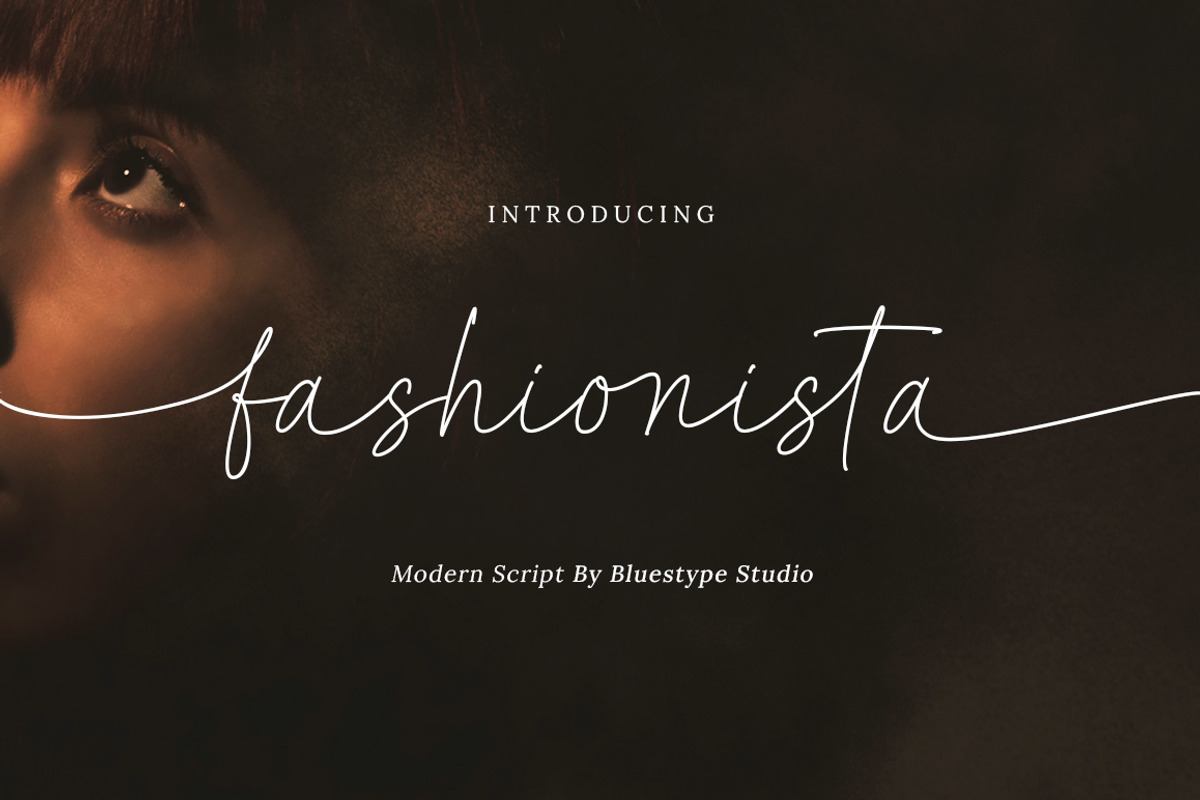
Fashionista - Modern Script Font Free Download
The Fashionista - Modern Script Font Free Download is an elegant and stylish typeface that combines smooth, flowing script with a contemporary touch. Perfect for creating chic logos, branding, invitations, fashion designs, and more, this font brings sophistication and personality to your work. Whether you're designing for a high-end brand, a trendy fashion campaign, or a personal project, Fashionista adds a stylish and refined flair to your designs.
Fashionista - Modern Script Font Free Download is ideal for designers looking to add a modern, elegant script to their typography. Perfect for upscale branding, event invitations, or fashion-related designs, this font will elevate your creative projects with its chic and flowing style. Download it today and bring a fashionable touch to your work with Fashionista!